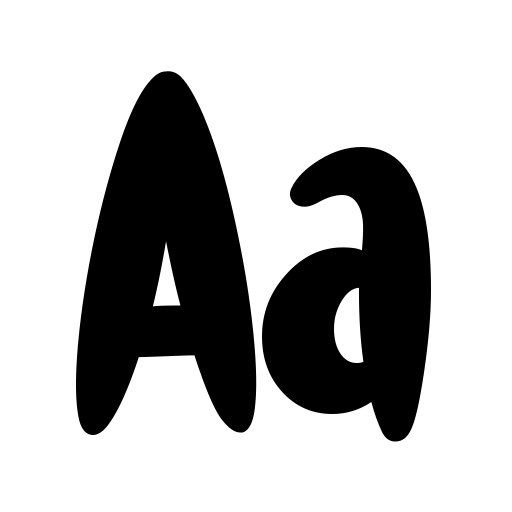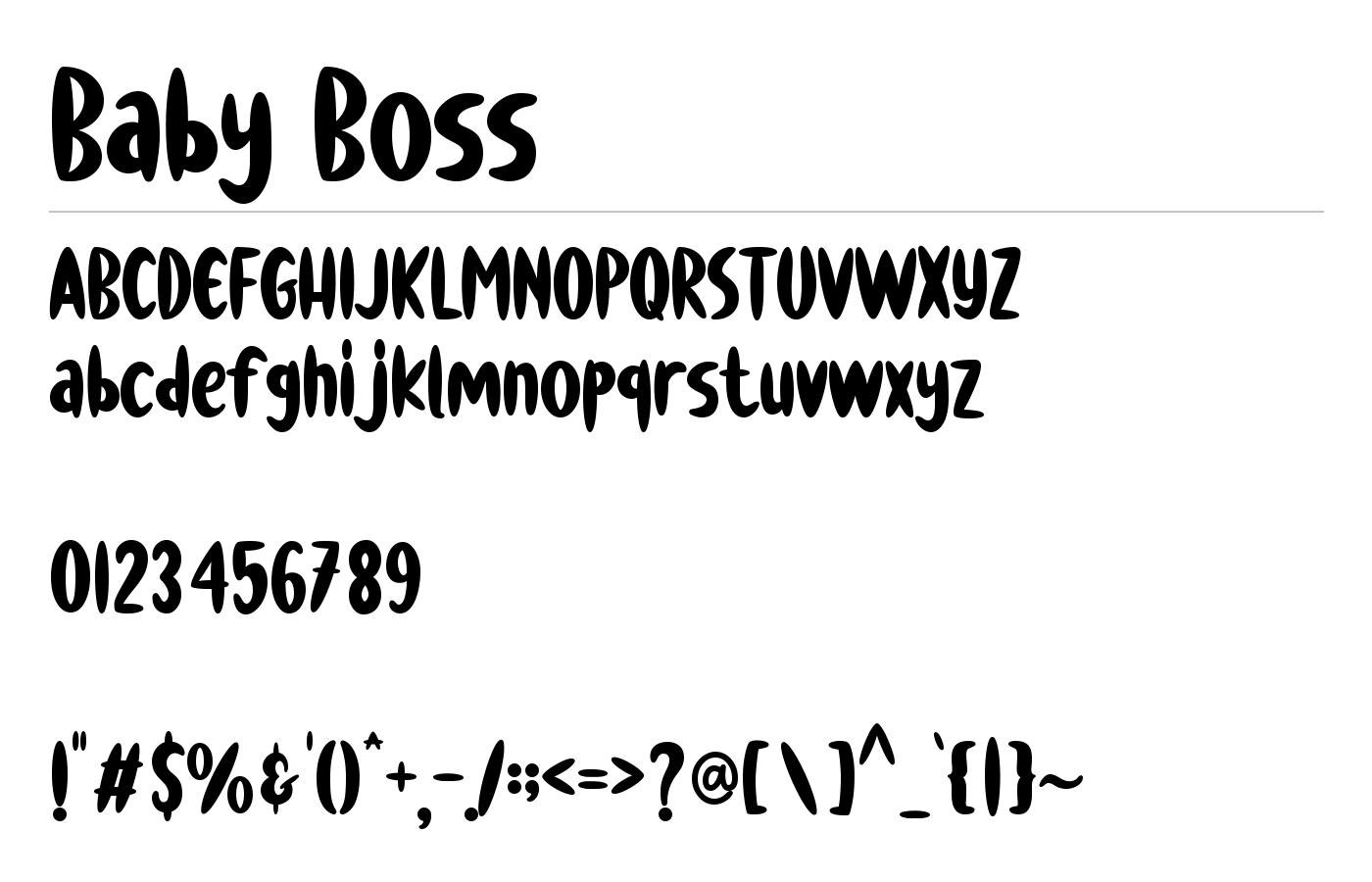
Baby Boss is a playful, bold sans serif font with a hand-drawn feel, featuring rounded edges and uneven strokes that create a friendly, casual vibe. Its lively letterforms and high x-height make it perfect for children's books, fun branding, and any design needing a warm, approachable touch. This font works well in headlines and logos where a youthful, energetic personality is desired.
Baby Boss Font
About Baby Boss Font